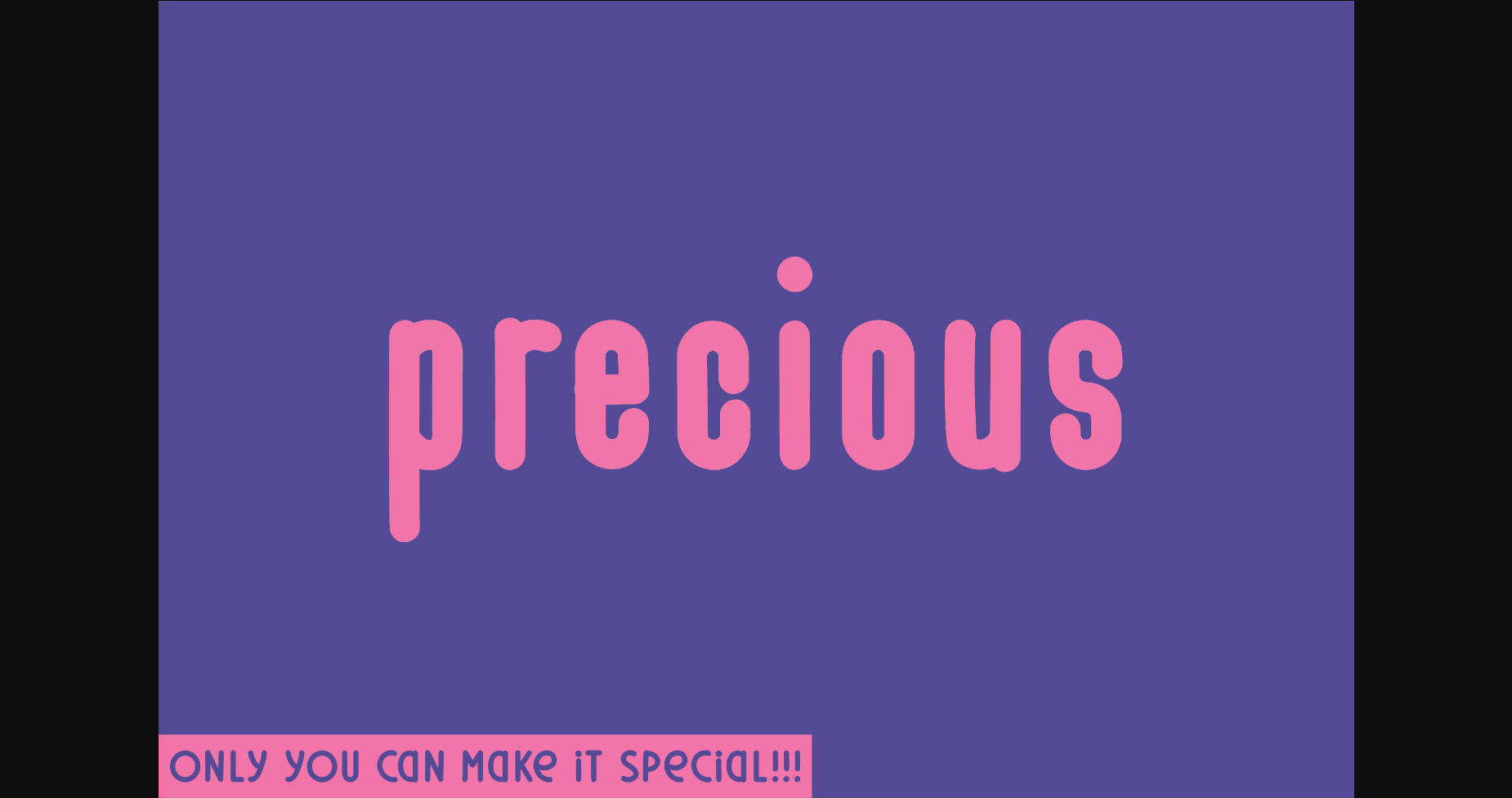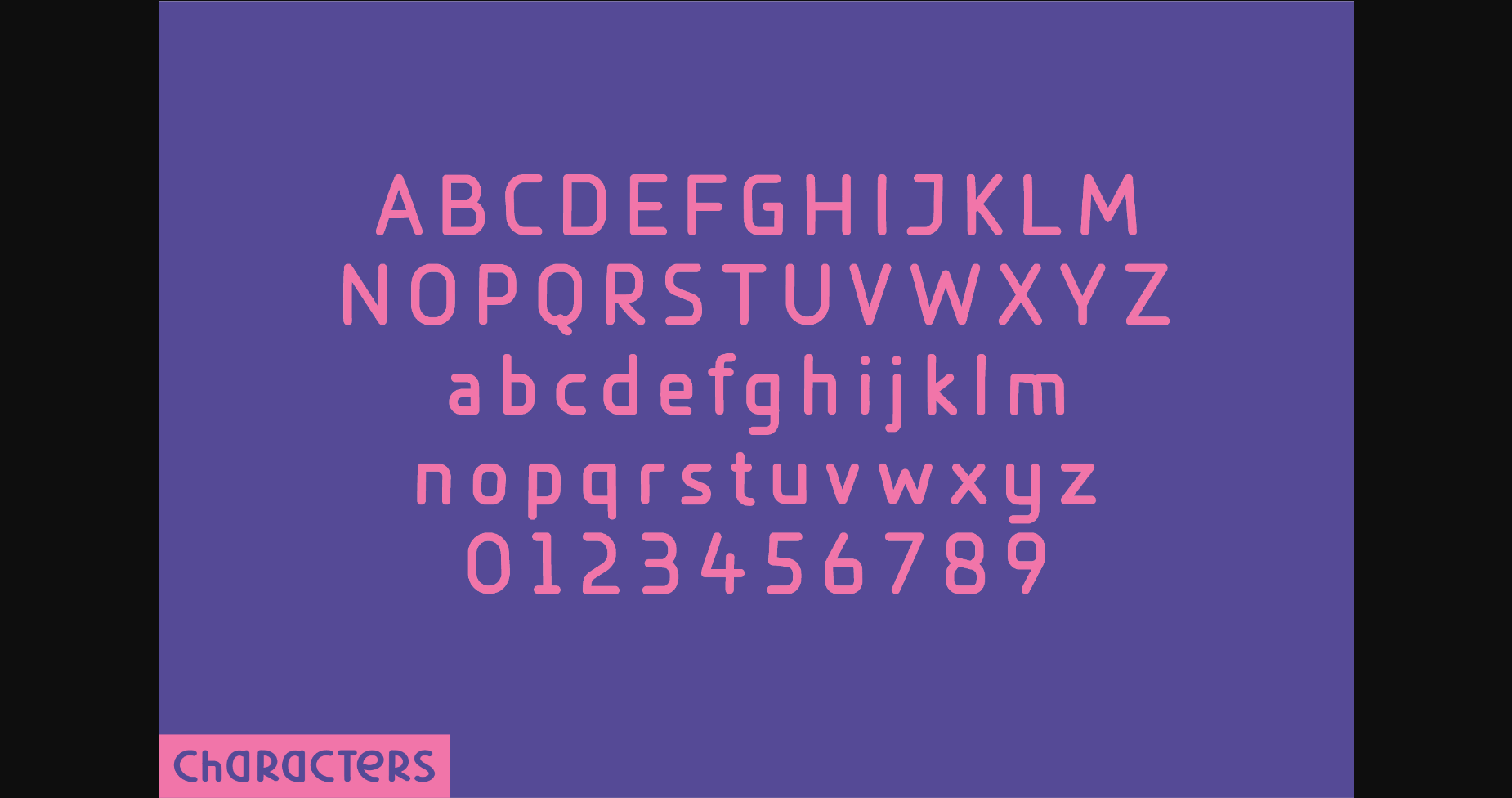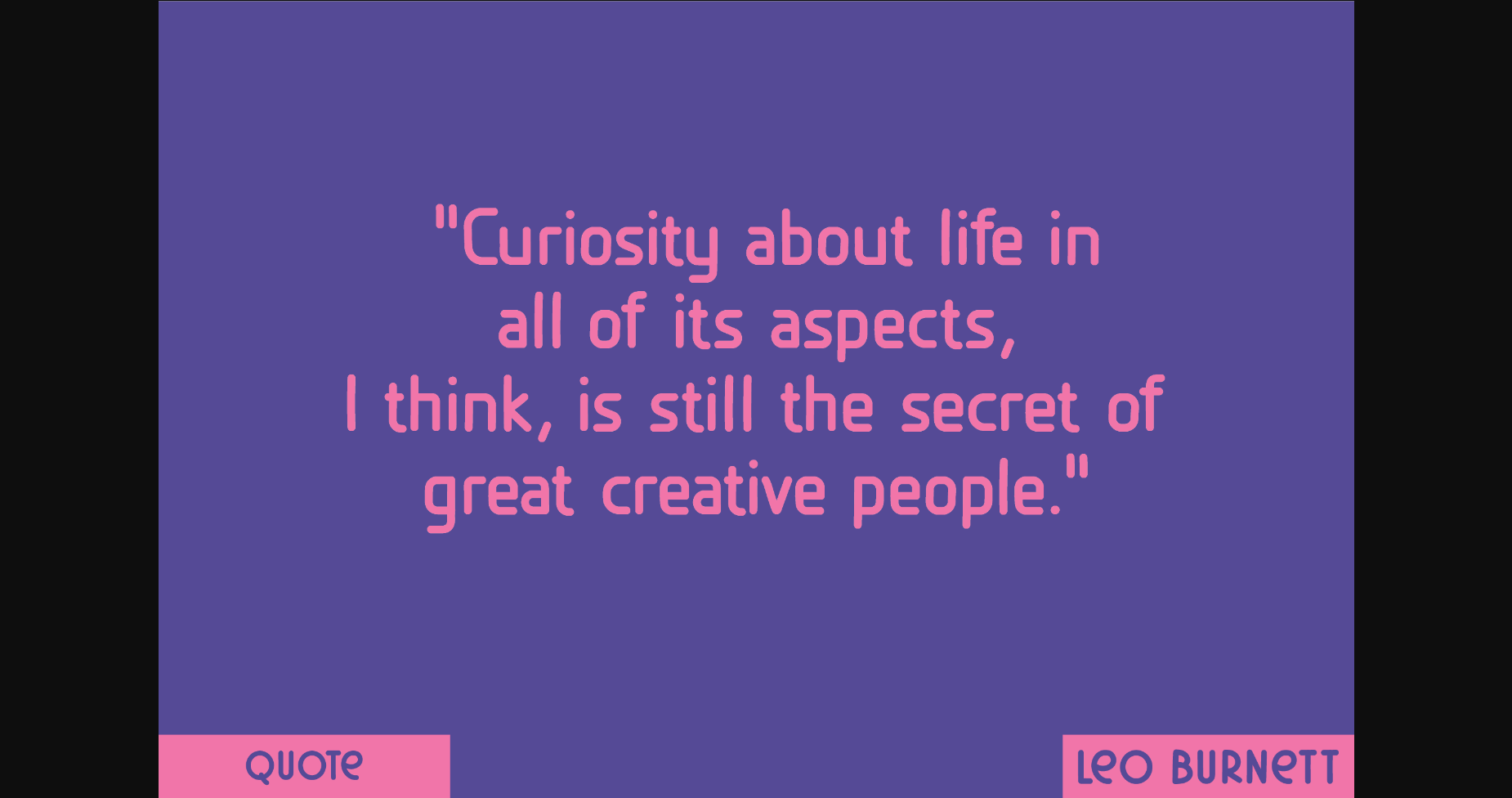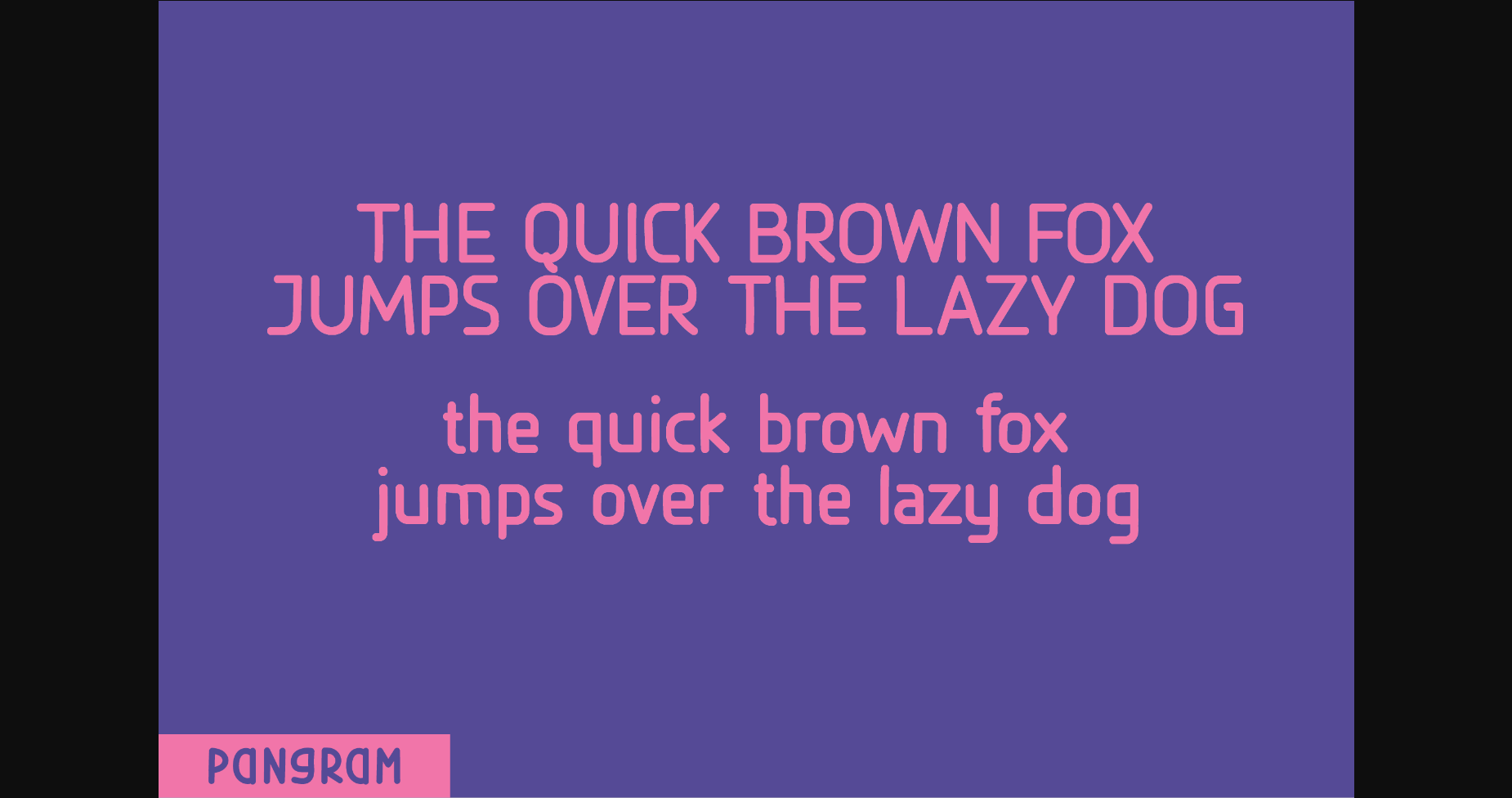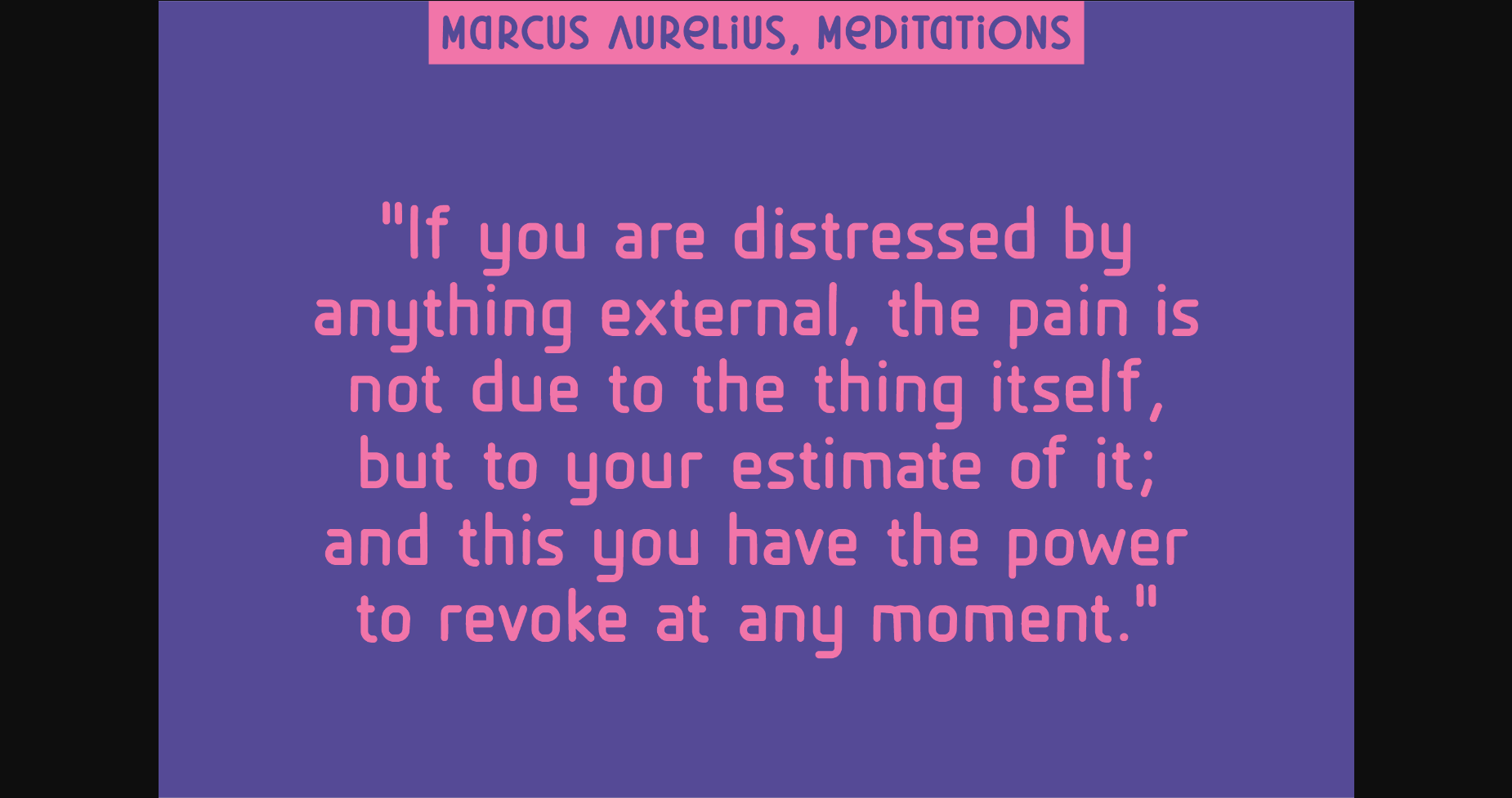
HomeSans Serif FontsPrecious Font Sans Serif Fonts Precious Font FacebookXPinterestWhatsApp 1 of 7 ... Precious Font Poster 2... Precious Font Poster 3... Precious Font Poster 4... Precious Font Poster 5... Precious Font Poster 6... Precious Font Poster 7... About Precious Font Precious is a bold and unique sans serif font, perfect for quotes, notes, tees, logos, social media and any design that requires a classic touch. DOWNLOAD NOW People also explored Road Font Angelina Font Simple and Minimalist Font Pioneer Font Familyar Mojito Font Candy Lover Font Emirose Font Yay It’s Sunday Font 267 0 TagsPrecious Font Previous articleButtercup FontNext articleHeart Melter Font LEAVE A REPLY Cancel reply Comment: Please enter your comment! Name:* Please enter your name here Email:* You have entered an incorrect email address! Please enter your email address here Website: Save my name, email, and website in this browser for the next time I comment. Personal Use Free Lanilla Personal Use Free Read more about this font Kaysan Personal Use Free Read more about this font Kidly Personal Use Free Read more about this font Vogue Font Personal Use Free Read more about this font BLOG Fonts That Capture the Spirit of New York City New York City is more than just a place—it’s an experience, a rhythm, a visual language... Free vs Paid Fonts: Why Investing in Premium Fonts Is Worth It Modern Sans-Serif Fonts That Brands Love in 2025 Where to Buy American Fonts Online in 2024